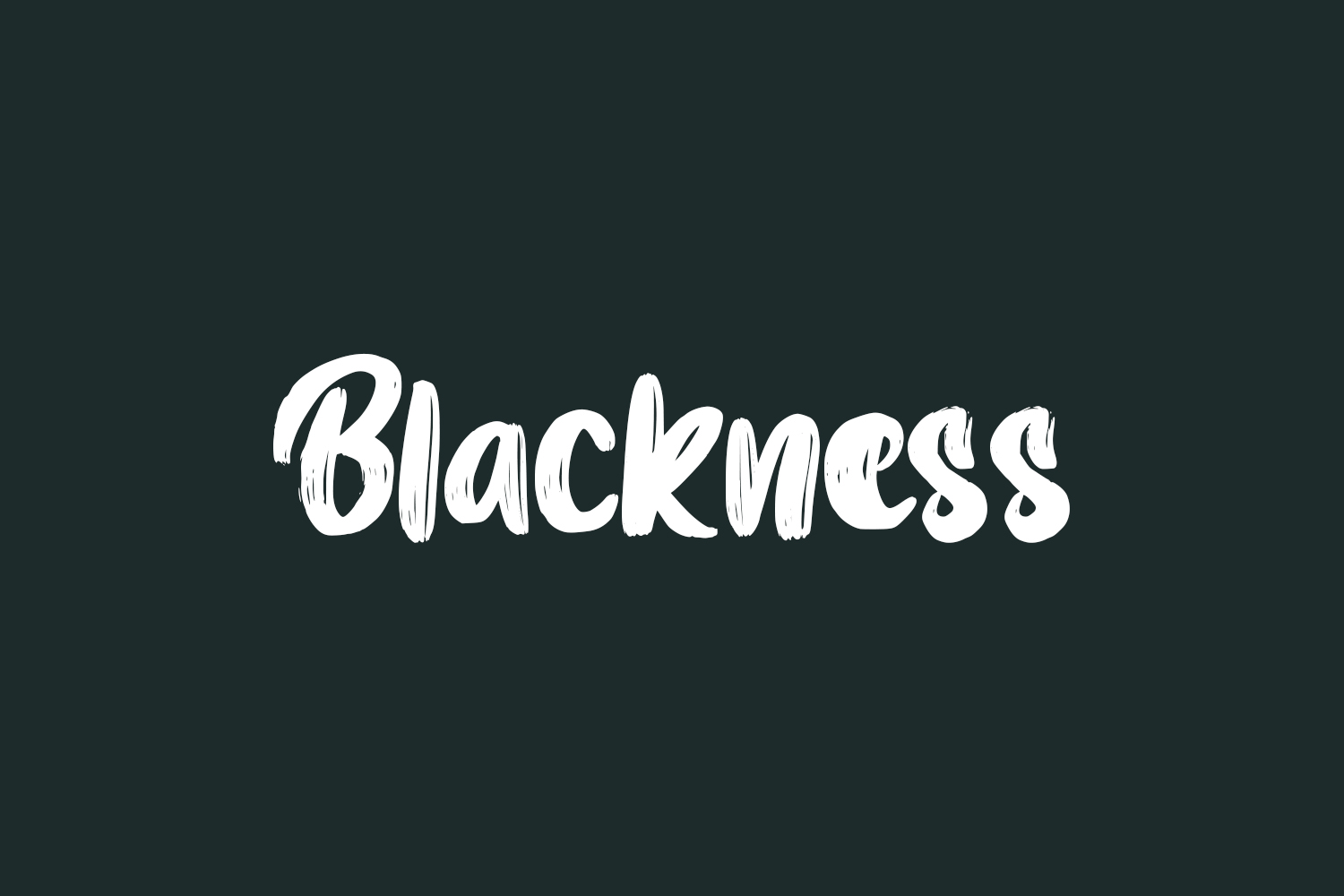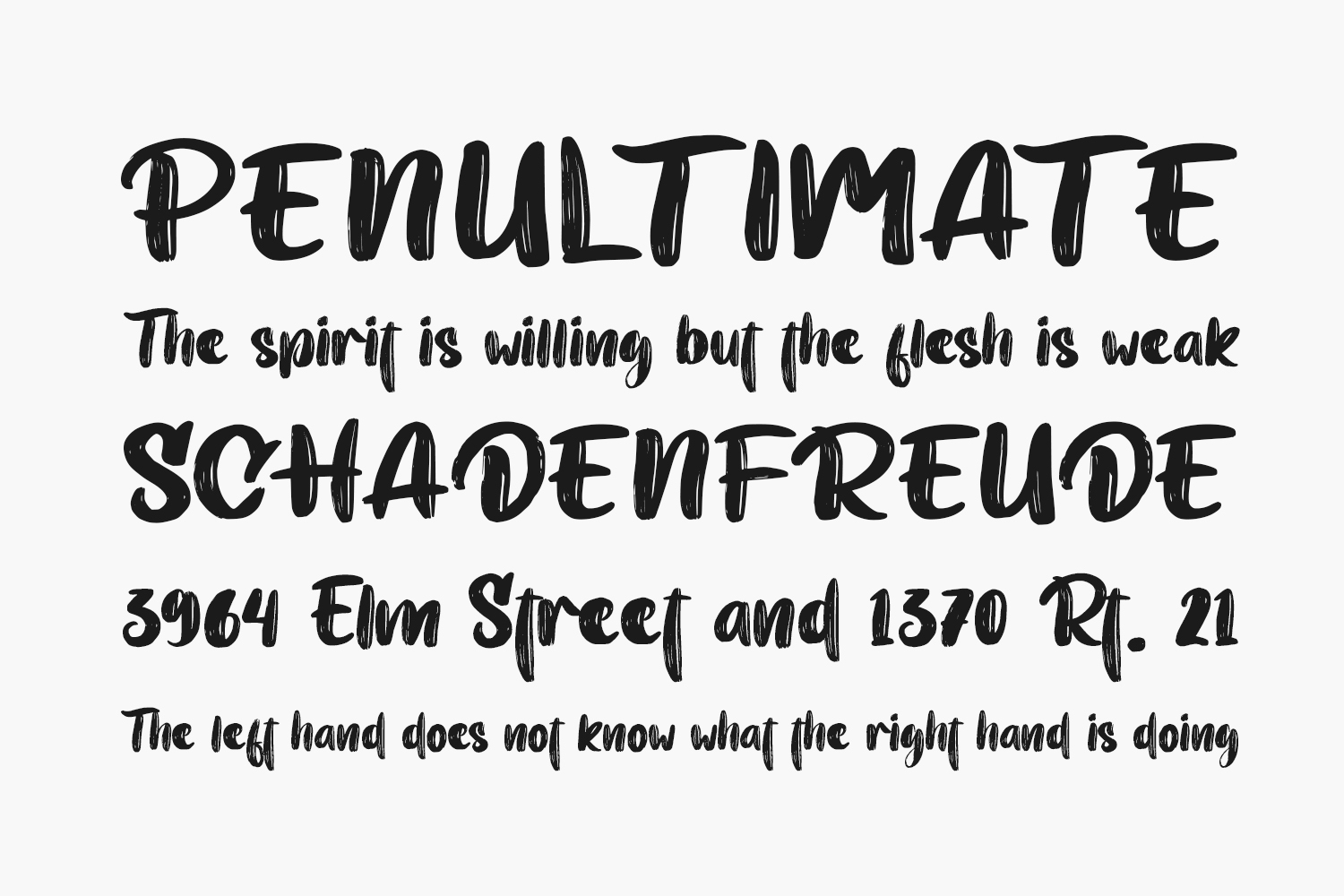
Explore the distinctiveness of Blackness Free Font, a powerful and authentic handwritten font. With its natural and elegant essence, this font is well-suited for headlines, titles, headings, logos, branding, posters, books, and a variety of other design applications. Blackness Free Font is free for personal use only. Please purchase the full version for commercial use.
Designed by Letterara